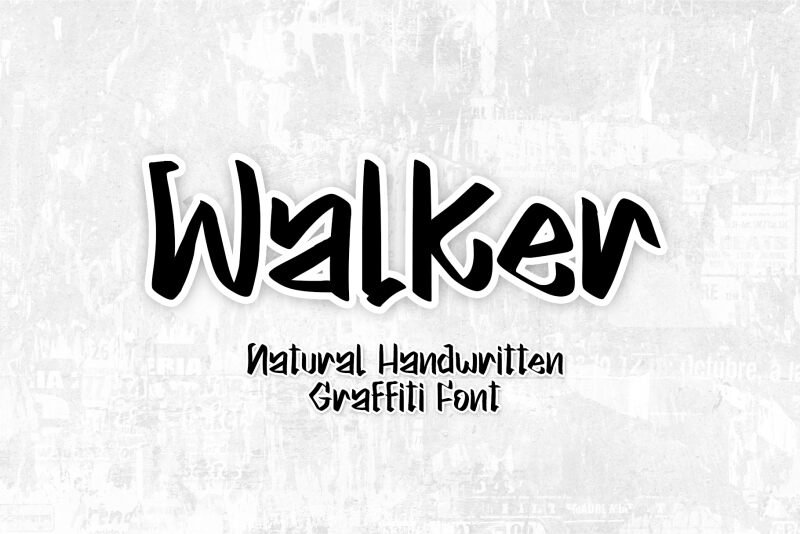
Walker, a captivating graffiti-inspired font crafted by Annisa Afni of Tuinsstudio, exudes raw energy and urban vibrancy. Its bold, dynamic strokes and unconventional letterforms evoke a sense of rebellious creativity, making it a striking choice for projects seeking a bold, unapologetic aesthetic. The font's unique character lies in its seamless blend of organic fluidity and sharp, angular edges, creating a visually arresting juxtaposition that commands attention.
This versatile font can elevate a wide range of design projects, from gritty street-inspired campaigns to edgy branding and packaging. Its expressive personality lends itself well to headline text, subheadings, and attention-grabbing display elements, effortlessly infusing a sense of urban edge and unbridled creativity. Whether crafting a distinctive logo, designing impactful posters, or adding a touch of raw authenticity to digital interfaces, the Walker font offers designers a powerful tool to make a lasting impression.